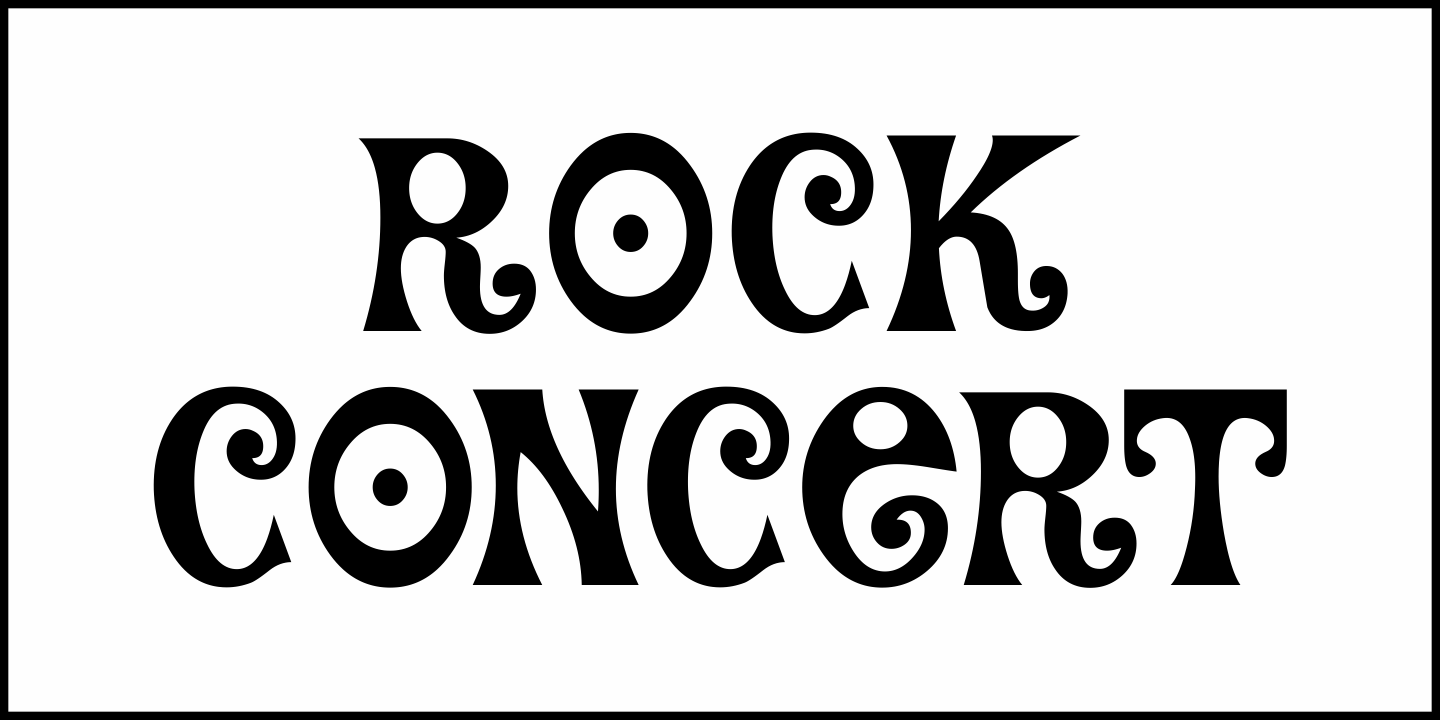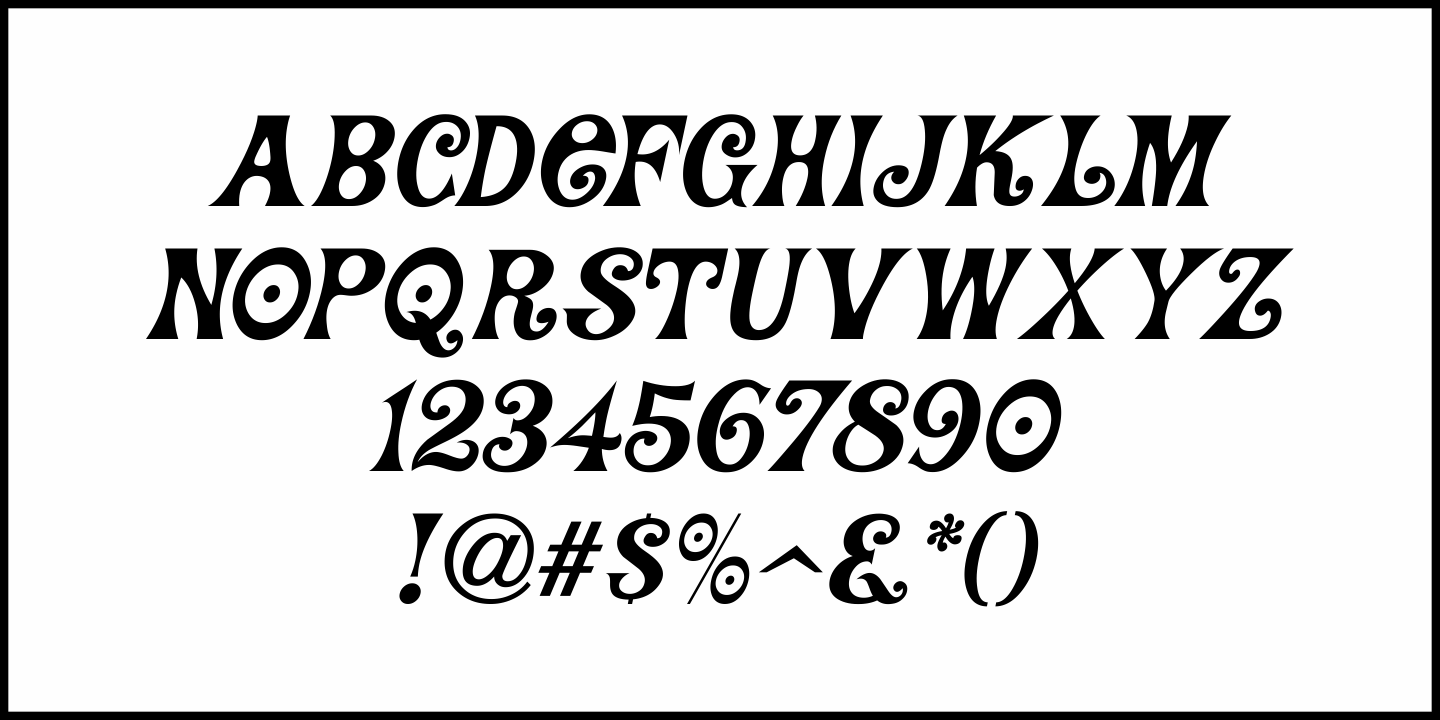
Rock Concert
Rock Concert JNL is a playful free form type design inspired by the opening title and credits for the 1964 motion picture comedy “Send Me No Flowers” starring Rock Hudson, Doris Day, and Tony Randall.
Strongly resembling hippie movement poster lettering of the mid-1960s, this fonts fits well with any retro project emulating the “Peace and Love” movement or (as its name implies) re-creating period piece rock concert posters.